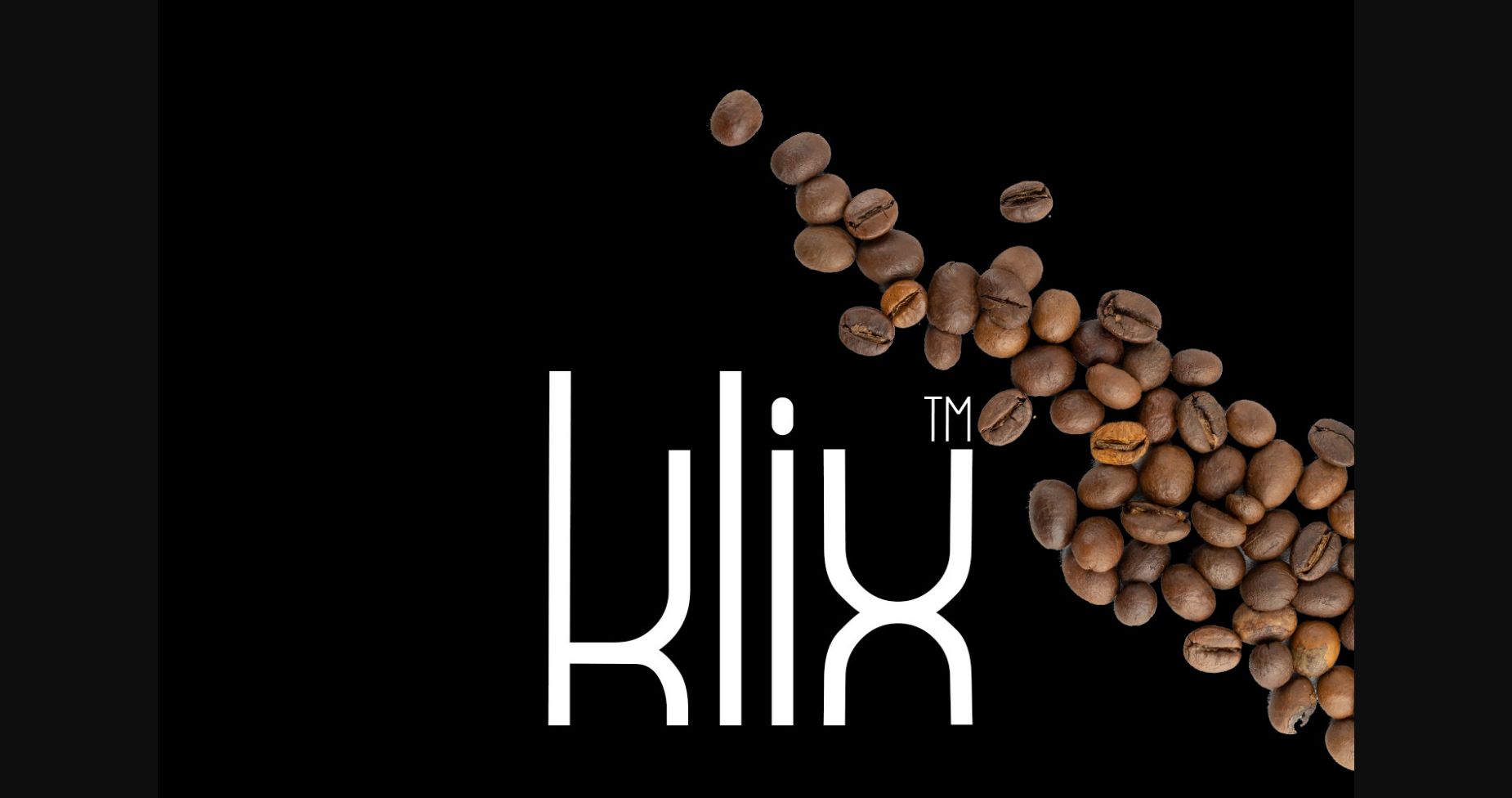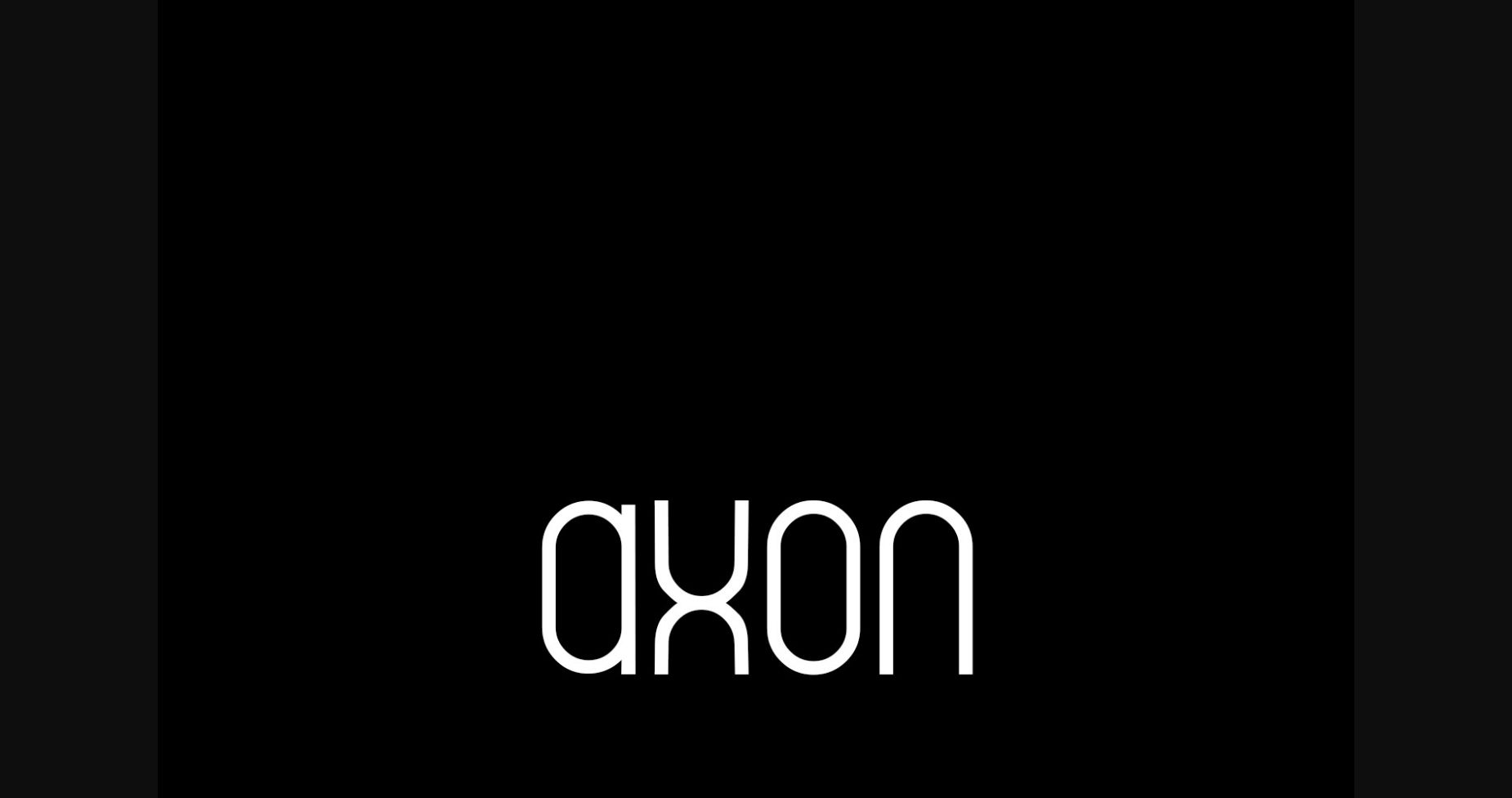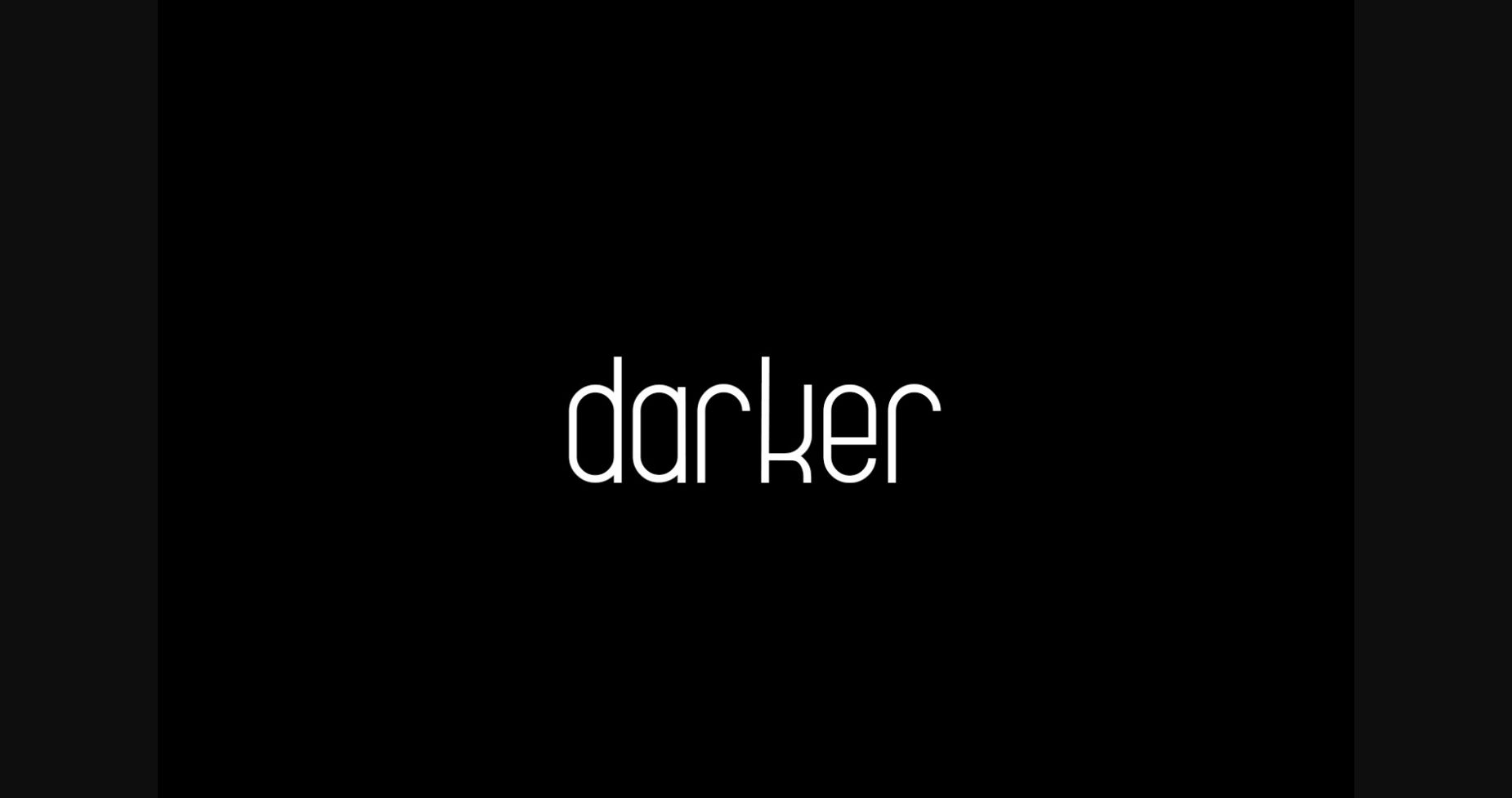
About Cataleya Font
Cataleya is a modern and minimal sans serif font. With its professional and almost perfect-looking characters, this font is the best choice for business logos, marketing materials, promotional designs, and so much more!